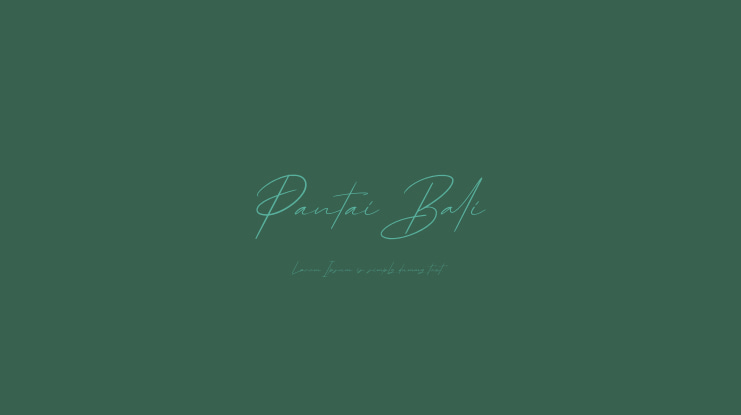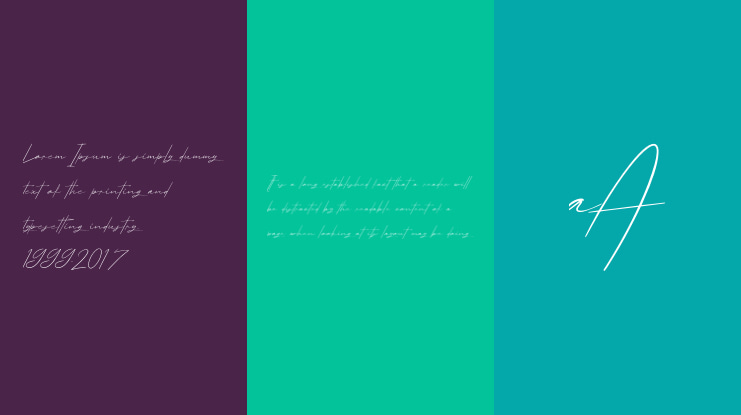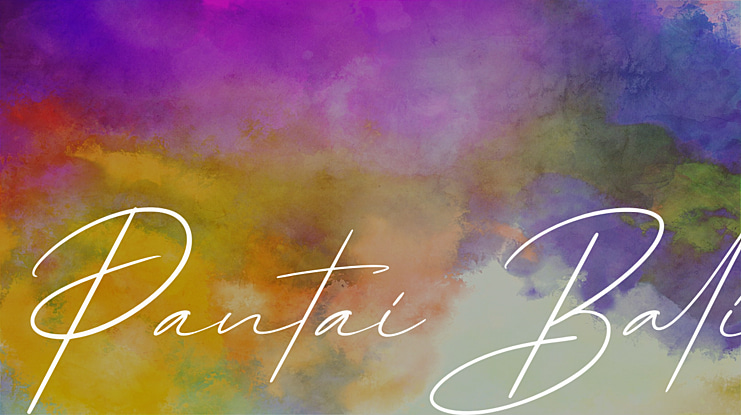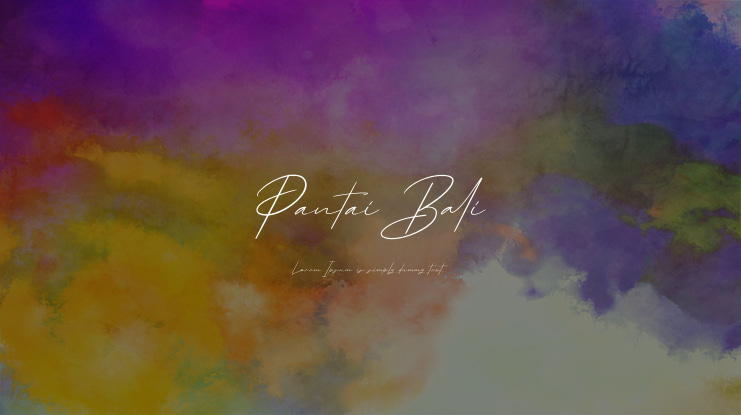
Pantai Bali Font
Yusup Saputra
It’s an beautiful script font, that features a very refined and classy look. It was designed by DYSA Studio. This another collection of script is perfect for your next branding project, excellent for your business. Pantai Bali have a natural edges, so this font gives an authentic handcrafted feel style.
Pantai Bali is perfect choice for people looking for clean, modern, minimalist, elegant, beauty design styles. Suitable for almost any graphic designs such as logo, branding materials, business cards, gift cards, t-shirt, cover, thumbnail, print, poster, photography, quotes .etc